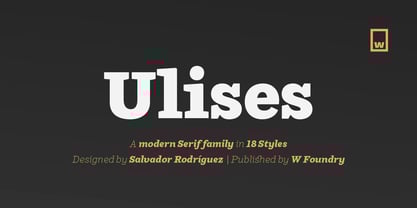
Ulises Font
Ulises Font is perfect for various design applications including adventure travel branding, exploration company logos, outdoor expedition materials, journey-themed book covers, wanderlust lifestyle brands, travel blog headers, adventure photography watermarks, expedition gear packaging, discovery-focused documentaries, and heroic storytelling projects. This epic typeface excels in projects requiring heroic narrative and odyssey themes that captures the courage, determination, and transformative power of great journeys and personal adventures.
What makes Ulises Font so exciting is its powerful embodiment of epic adventure and heroic journey through letterforms that suggest the courage and determination required for transformative expeditions. The font features bold proportions that communicate strength and resolve, dynamic character variations that mirror the unpredictable nature of great adventures, and distinctive details that evoke the classical heroism of legendary odysseys. Its distinctive epic character and adventurous spirit make it perfect for brands seeking to communicate courage, discovery, and the life-changing potential of bold journeys and personal transformation through adventure.
Ulises Font family includes heroic weights and adventure-inspired variations that enhance its versatility for different expedition applications. Each style maintains the font's signature epic character while providing options for various journey-themed design approaches. The family also features adventure decorative elements, exploration symbols, and heroic ornaments that can be combined with the letterforms to create cohesive odyssey design systems.
Whether you're developing adventure brands, travel services, or transformative journey communications, Ulises Font Free Download provides epic typography that inspires courage and celebrates the transformative power of bold adventures and personal odysseys. This typeface transforms ordinary communications into heroic calls to adventure that promise life-changing experiences and personal transformation. The font's epic appeal makes it particularly effective for adventure travel companies, outdoor gear brands, and organizations targeting adventurous spirits who seek transformative experiences and heroic challenges.
Ulises Font stands out by delivering authentic heroic energy that feels connected to real adventure experiences rather than artificial heroic theming. Its carefully designed epic proportions and adventurous details ensure that designs feel genuinely connected to transformative journey traditions and heroic storytelling. From adventure travel branding to expedition documentaries, this font provides designers with tools to create communications that celebrate heroic spirit and inspire appreciation for transformative adventures through bold, odyssey-inspired typography that captures the essence of epic personal journeys.